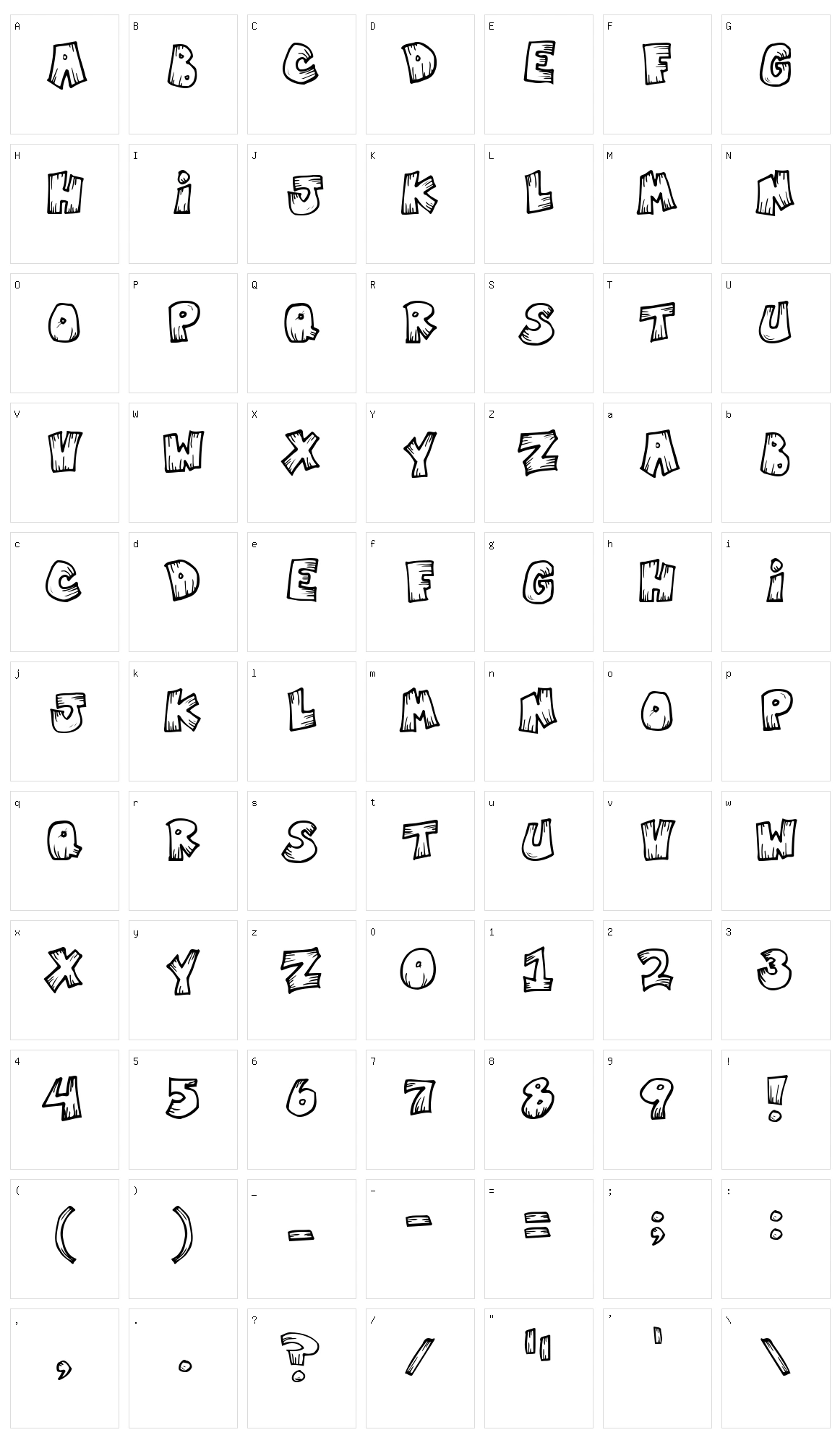
The free font Mister Vampire is carefully designed by Vin Rowe, showcasing a thoughtful balance of creativity and usability and falls under the Cartoon font style. When you download the ZIP file, it contains only 23.93 KB of font files, making it lightweight and quick to download. Please review the license details below to understand permitted usage and distribution rights. If license information is not available, we recommend using this font for personal projects only or contacting the author directly for commercial usage permissions.